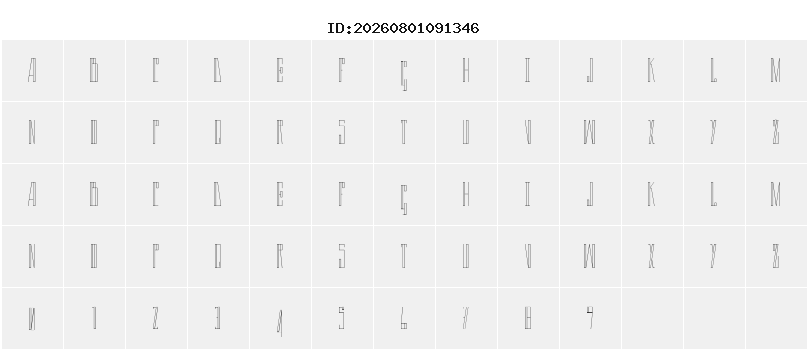
LIONE Preview
• Font Name: LIONE
• Full Font Name: LIONE
• Designer: Manuele Mascheroni
About LIONE.ttf
LIONE.ttf is a modern, elegant sans-serif font designed for ultimate readability and visual harmony. Perfect for branding, headlines, web design, and print materials.